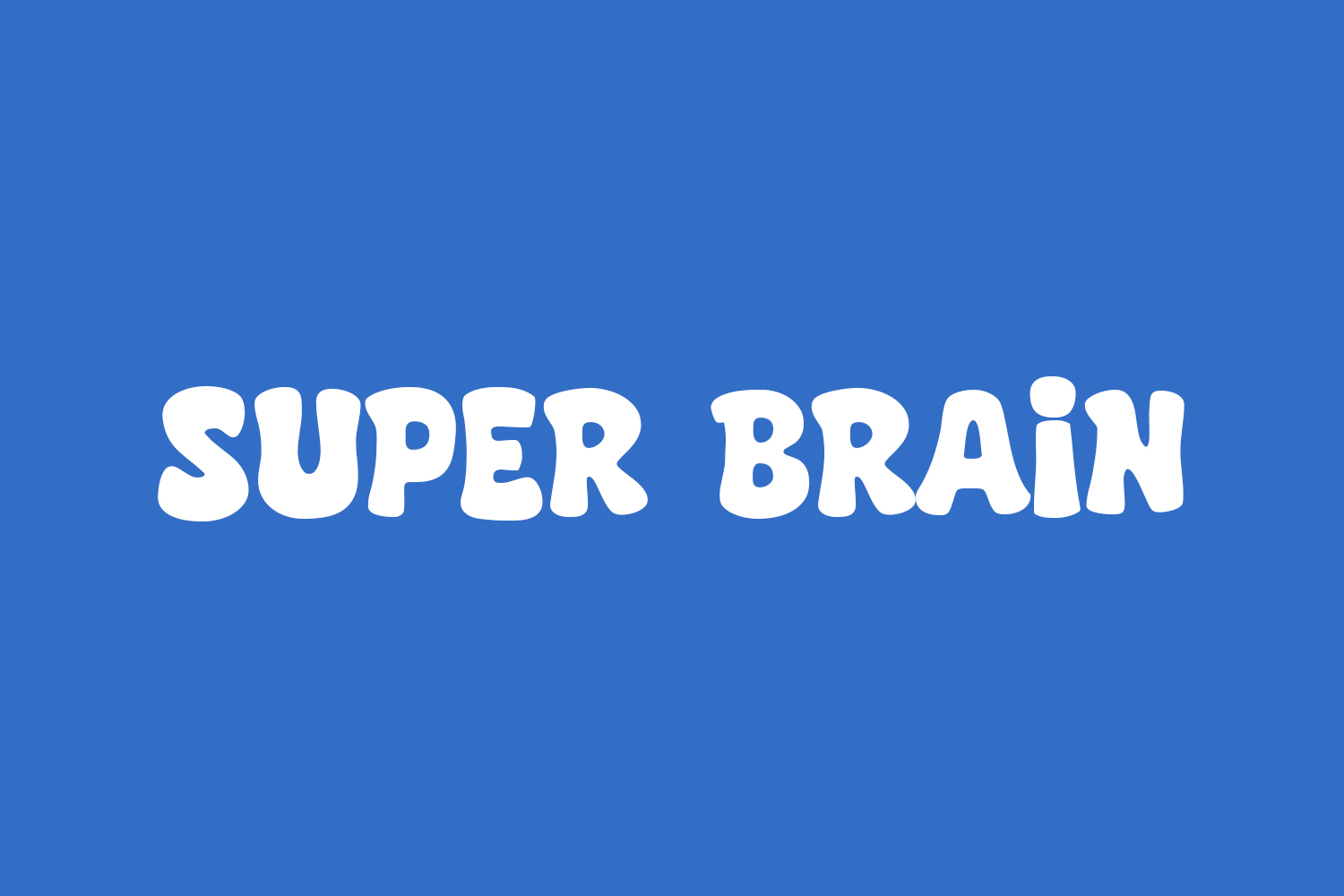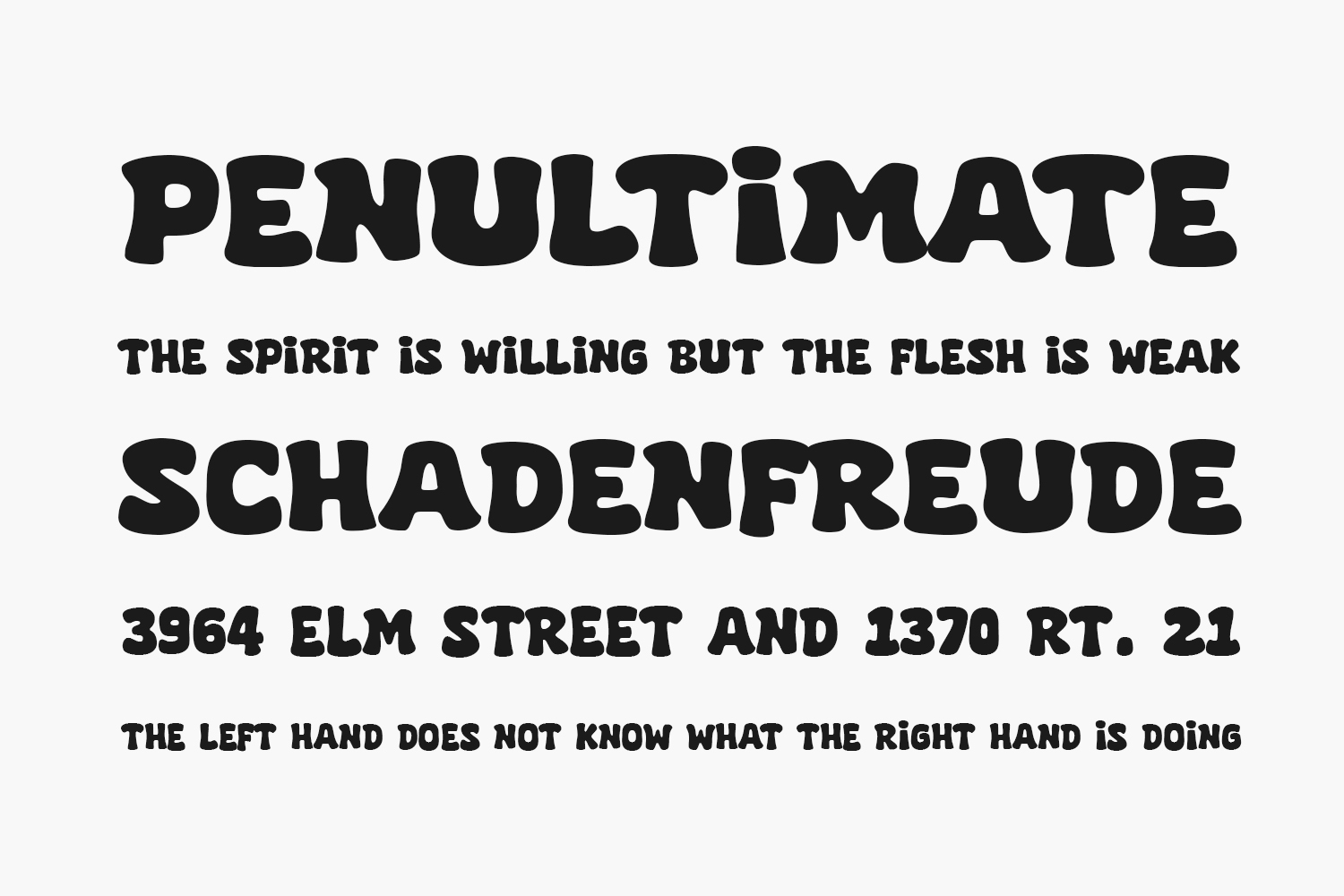
Super Brain Free Font – Playful Display Typeface for Kids & Fun Branding
Super Brain is a bold and whimsical display font designed by Fsuarez913 to bring playful energy and creative charm to your design projects. With its thick strokes, rounded edges, and cartoon-style detailing, this free decorative typeface works perfectly for crafting fun logos, greeting cards, social media graphics, children’s books, posters, and more. Available in TTF format — ideal for designers seeking a friendly, expressive font that instantly connects with young audiences or casual branding.
Why Choose Super Brain?
- Cute Cartoon Style: Rounded letterforms and soft curves create a lighthearted, kid-friendly appearance perfect for informal visuals.
- Ideal for Kids’ Projects: Perfect for storybooks, nursery décor, birthday cards, or animated branding needing a fun tone.
Where to Use Super Brain?
Super Brain shines across a variety of creative applications:
- Logos & Branding: Adds warmth and personality to brand identities for toy brands, daycare centers, or cartoon studios needing a childlike tone.
- Kids’ Books & Illustrations: Perfect for story titles, character names, or illustrations that need a fun and approachable style.
- Greeting Cards: Brings joy to thank-you notes, invitations, or handmade gift tags.
- Packaging Design: Great for product labels on candies, mugs, notebooks, or novelty toys aimed at young audiences.
- Social Media Graphics: Creates bold text overlays for Instagram Stories, Pinterest pins, TikTok videos, and YouTube thumbnails with a quirky vibe.
Design Tips with Super Brain
- Glyphs: 234 glyphs including uppercase (A-Z), lowercase (a-z), numerals, punctuation, and decorative characters.
Designed by Fsuarez913